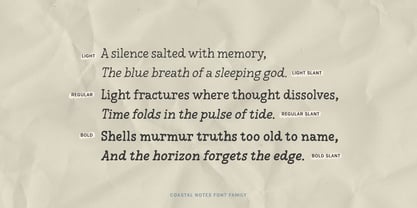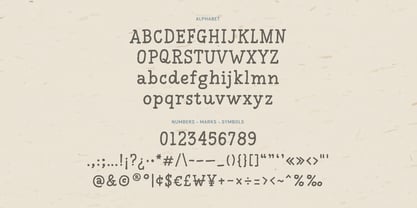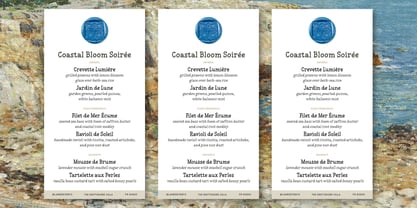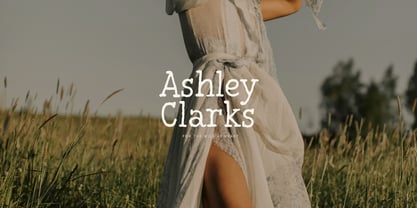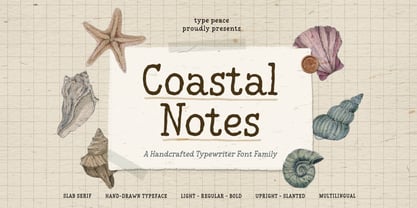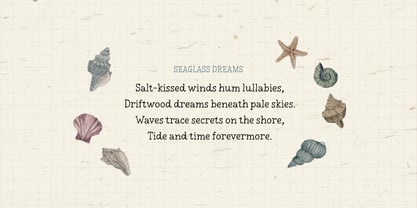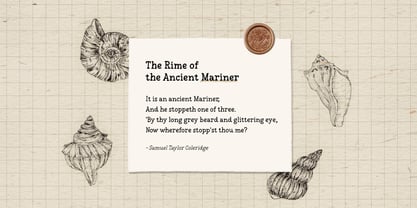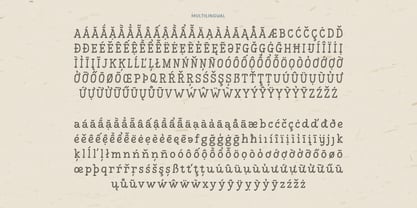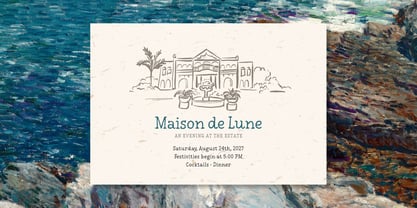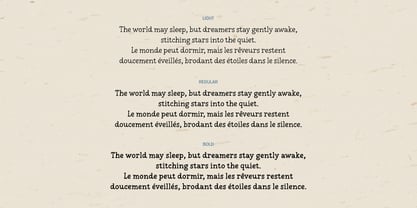
Coastal Notes
The Coastal Notes Font Family was designed by Hai Anh Nguyen and published by type peace. Coastal Notes contains 6 styles and family package options. More about this family
Coastal Notes is a hand-drawn slab serif font family inspired by the timeless charm of vintage typewriters. With six styles—Light, Regular, and Bold, each available in Upright and Slanted—Coastal Notes brings a touch of organic texture and personality to your typography. Its natural roughness and subtle irregularities echo the feel of ink pressed onto paper, making it perfect for projects that call for warmth, character, and authenticity.